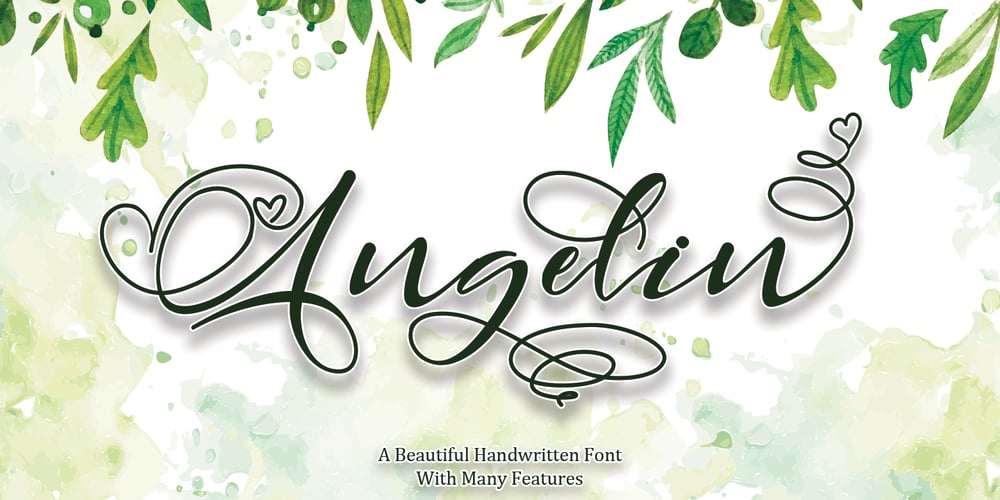
Angelin Love Font Family was designed by Thomas Aradea and published by Letterara. Angelin Love contains 2 styles and family package options. Angelin Love is a gorgeous script font, beautiful and romantic. This font looks perfect for Valentine’s Day designs, or for other romantically inclined styles and projects. To stay up to date for my latest job, follow me and let’s be friends because there will be many promos.